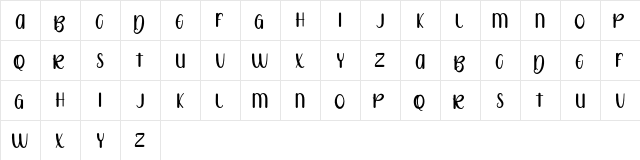
Rotter Bradly FREE Regular
Design Context for Rotter Bradly FREE Typeface
Rotter Bradly FREE is a composed and adaptable typeface that performs quietly and consistently across a wide range of design contexts.
Pro Tip: Use Rotter Bradly FREE in both headline and body roles to test its range before committing to a single application.